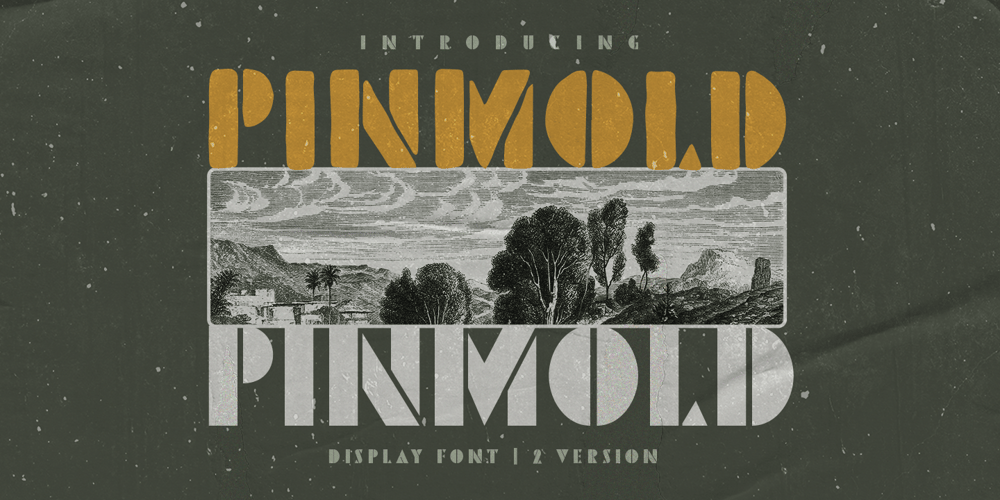
Pinmold Font Family was designed by Hendry Juanda and published by Letterhend. Pinmold contains 2 styles and family package options. Introducing, Pinmold, a modern stencil display font suitable for military theme design, urban street style, or even for gaming title for a war game. This type of font also perfectly made to be applied especially in logo, headline, signage and the other various formal forms such as apparel, novel, label / packaging, and various advertising purposes.Features : numbers and punctuation multilingual PUA encoded regular and rough version We highly recommend using a program that supports OpenType features and Glyphs panels like many of Adobe apps and Corel Draw, so you can see and access all Glyph variations.